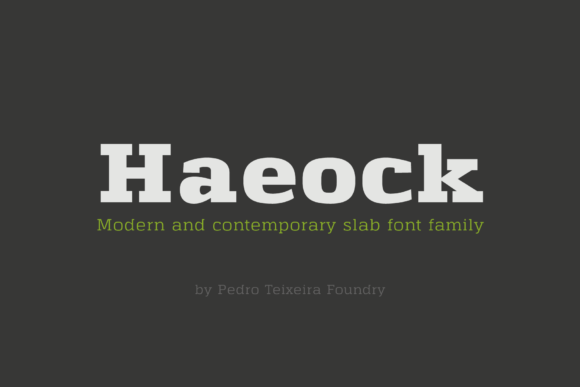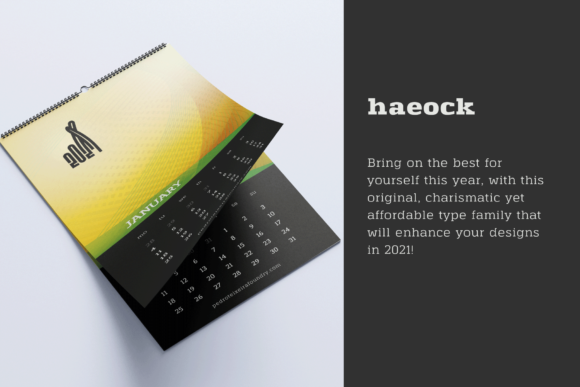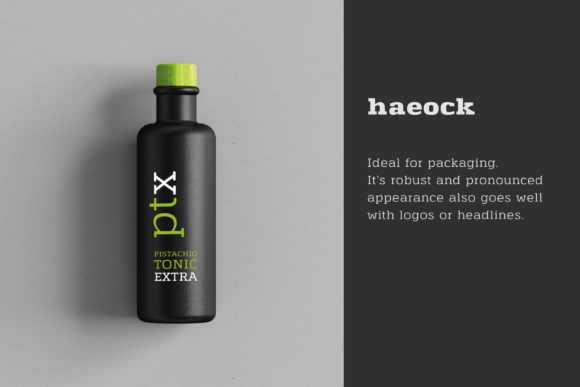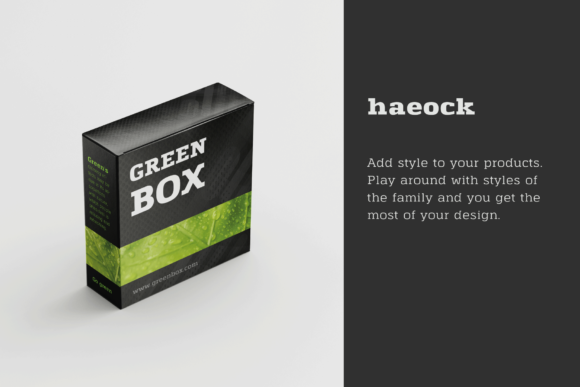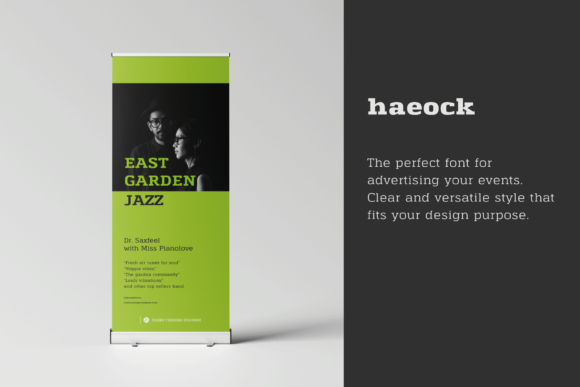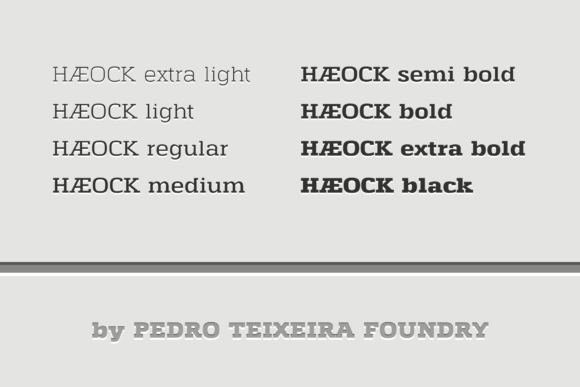
Haeock Family
Haeock Family: A Cool and Vintage-Styled Slab Serif Font
Haeock Family is a distinctive slab serif font collection that combines coolness with a vintage aesthetic and thick letterforms. This expertly designed typeface offers designers a powerful tool for creating impactful typography across a wide range of design projects.
Key Features of Haeock Family
• Cool Design: Features a trendy and appealing appearance
• Vintage Style: Incorporates a nostalgic feel reminiscent of classic typography
• Thick Letters: Offers bold, substantial letterforms for maximum visual impact
• Slab Serif Structure: Maintains the characteristic thick, rectangular serifs typical of slab serif fonts
• Versatile Application: Suitable for a variety of design contexts
• Out-of-this-World Look: Designed to make creations appear extraordinary
Ideal Uses for Haeock Family
Haeock Family’s unique characteristics make it particularly well-suited for:
• Web designs
• Business cards
• Vintage-inspired branding and logo creation
• Poster and advertisement layouts
• Packaging design for products with a retro aesthetic
• Any project requiring an assertive typographic voice
When incorporating Haeock Family into your designs, consider the following tips:
• Use for headlines or short blocks of text to maximize its vintage and bold impact
• Experiment with different sizes to highlight the font’s thick letterforms
• Pair with simpler sans-serif fonts for body text to create contrast
• Consider using it in projects where you want to convey a sense of nostalgia or strength
Haeock Family is an excellent choice for designers looking to add a cool, vintage-styled, and thick-lettered slab serif to their typographic toolkit. Its unique blend of retro charm and bold presence makes it stand out in the world of typography. Whether you’re working on logo designs, creating layouts for web projects, or developing business cards, Haeock Family offers the perfect combination of coolness and assertiveness.
Explore how Haeock Family can bring an out-of-this-world edge to your design projects. From eye-catching web designs to impactful business cards, this font family provides the tools to create striking and memorable typography that stands out with its unique blend of vintage style and thick letterforms.